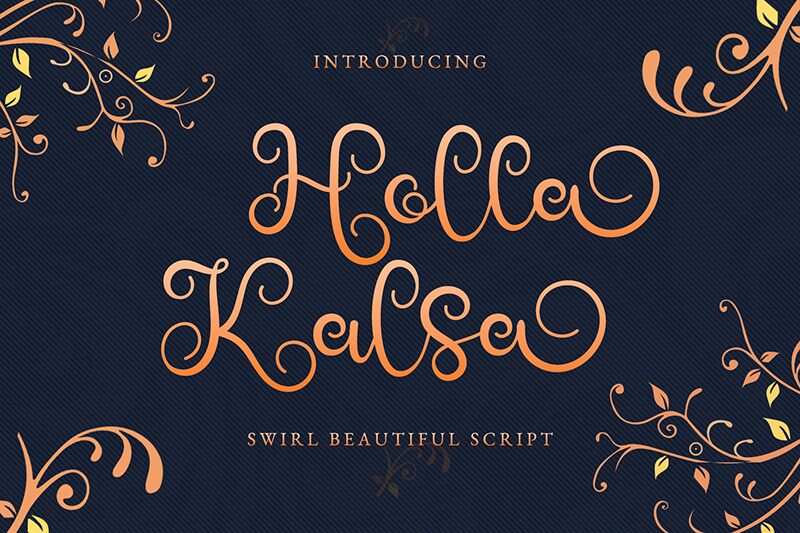
Holla Kalsa font by Airotype Studio is a beautiful free fancy font with elegance in every stroke. This sophisticated typeface seems to be primarily inspired by the curvatures in calligraphy, with some Gothic elements added to remain competitive in an already saturated industry. The swirls and ornaments give it a unique character that makes it stand out not only from standard typefaces but free fonts as a whole.
With its elegant look and abundance of decoration, Holla Kalsa is perfect for any formal design project. It can be used for branding, invitations, RSVP cards, headings, logos, labels, stickers, and everything else that needs a strong character. It looks especially nice on dark backgrounds with the wordmark focusing on the subtle yet impressive white curves.